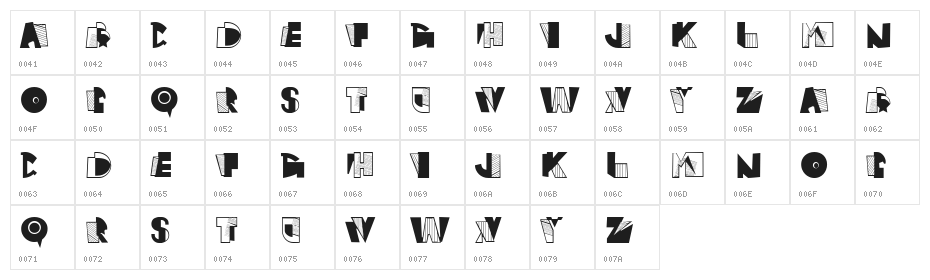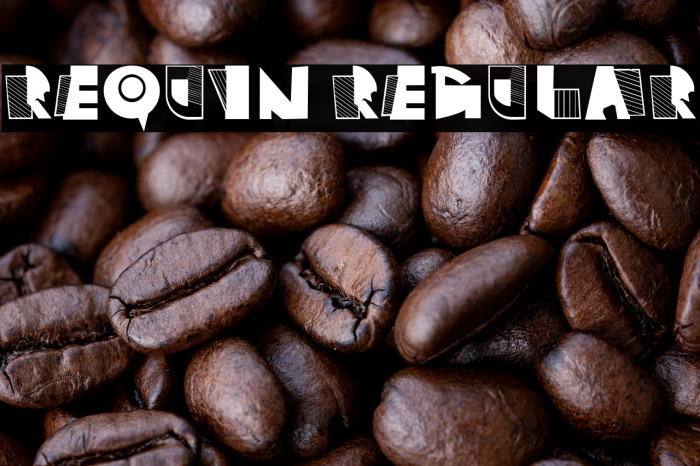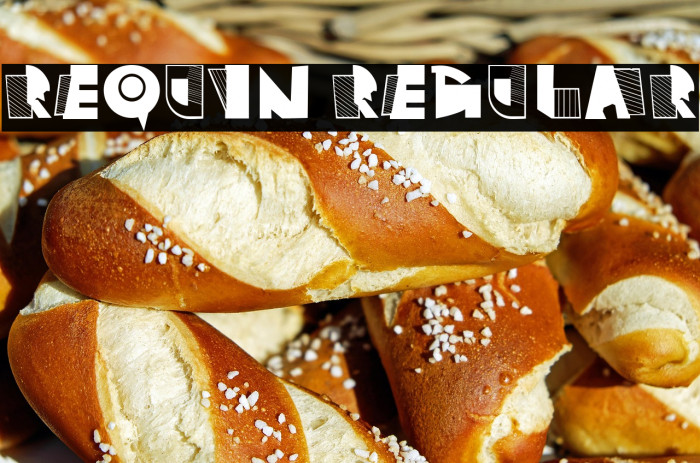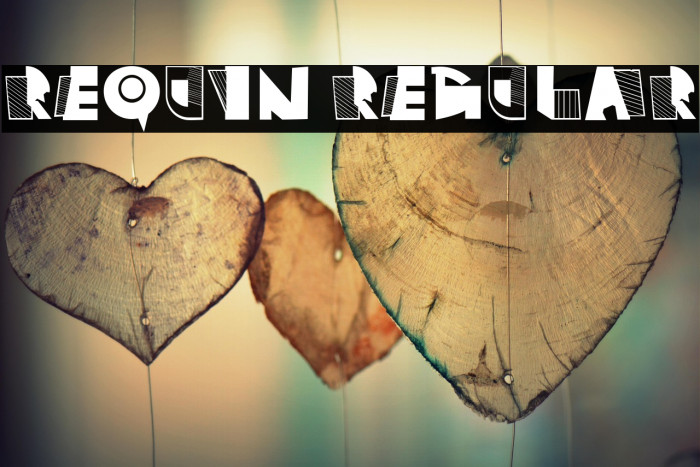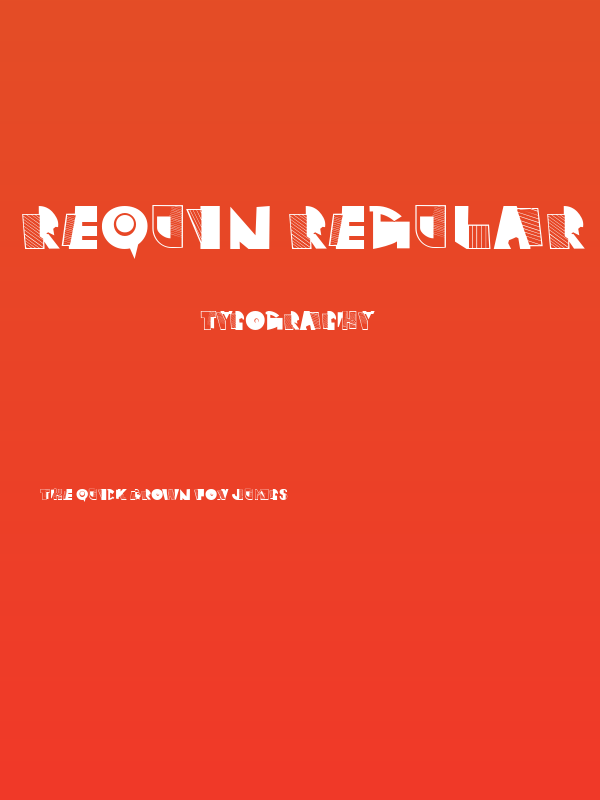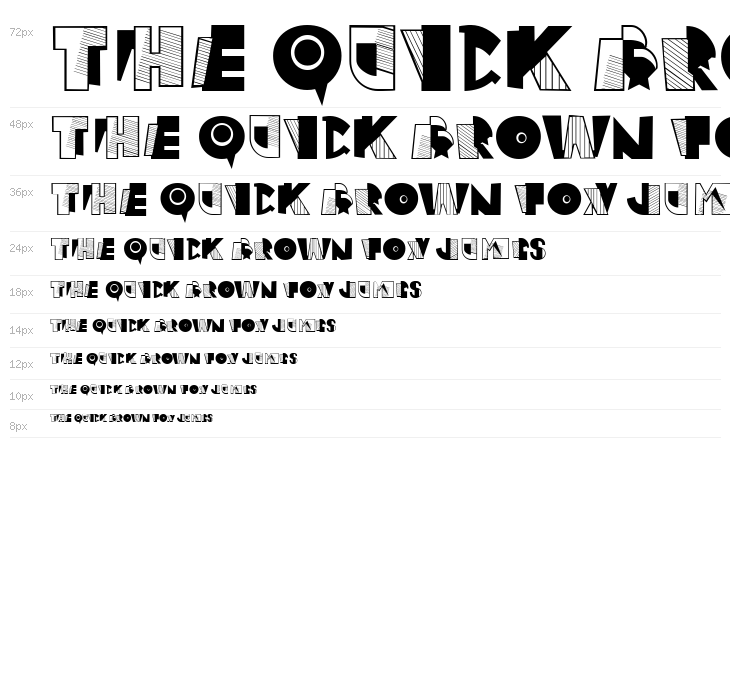
Requin Regular Font
Requin Regular Description
This font features a bold and playful design with a mix of solid and outlined characters. Each letter is uniquely styled, incorporating geometric shapes and patterns, creating a dynamic and eye-catching appearance. The font's artistic flair makes it stand out, with some letters filled with stripes or dots, while others have bold, solid fills. The overall look is modern and artistic, suitable for creative projects that require a distinctive and engaging typeface.
| Proposed Projects | Ideal for posters, album covers, branding, and any creative project needing a standout typeface. |